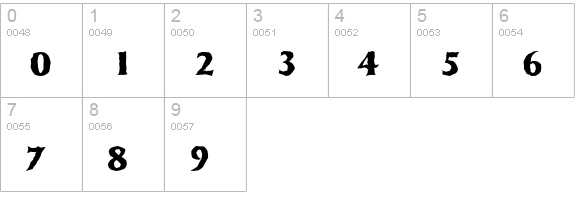
SydneyAntique-Bold is a strong, high-contrast variant in the SydneyAntique typeface family \xE2\x80\x94 well suited to headlines, attention-grabbing titles, and strong calls-to-action.
SydneyAntique-Bold is a classic and elegant font that exudes sophistication and timeless charm. With its bold and distinctive letterforms, this font is perfect for adding a touch of vintage flair to your designs. The strong lines and intricate details of SydneyAntique-Bold make it stand out and command attention. What's even better is that SydneyAntique-Bold is available for free download at FontsMarket.com. Yes, you read that right - this exquisite font can be yours at no cost, allowing you to enhance your projects with its unique style without breaking the bank. Don't miss out on the opportunity to elevate your designs with the beauty and grace of SydneyAntique-Bold. Download it now and let your creativity shine!